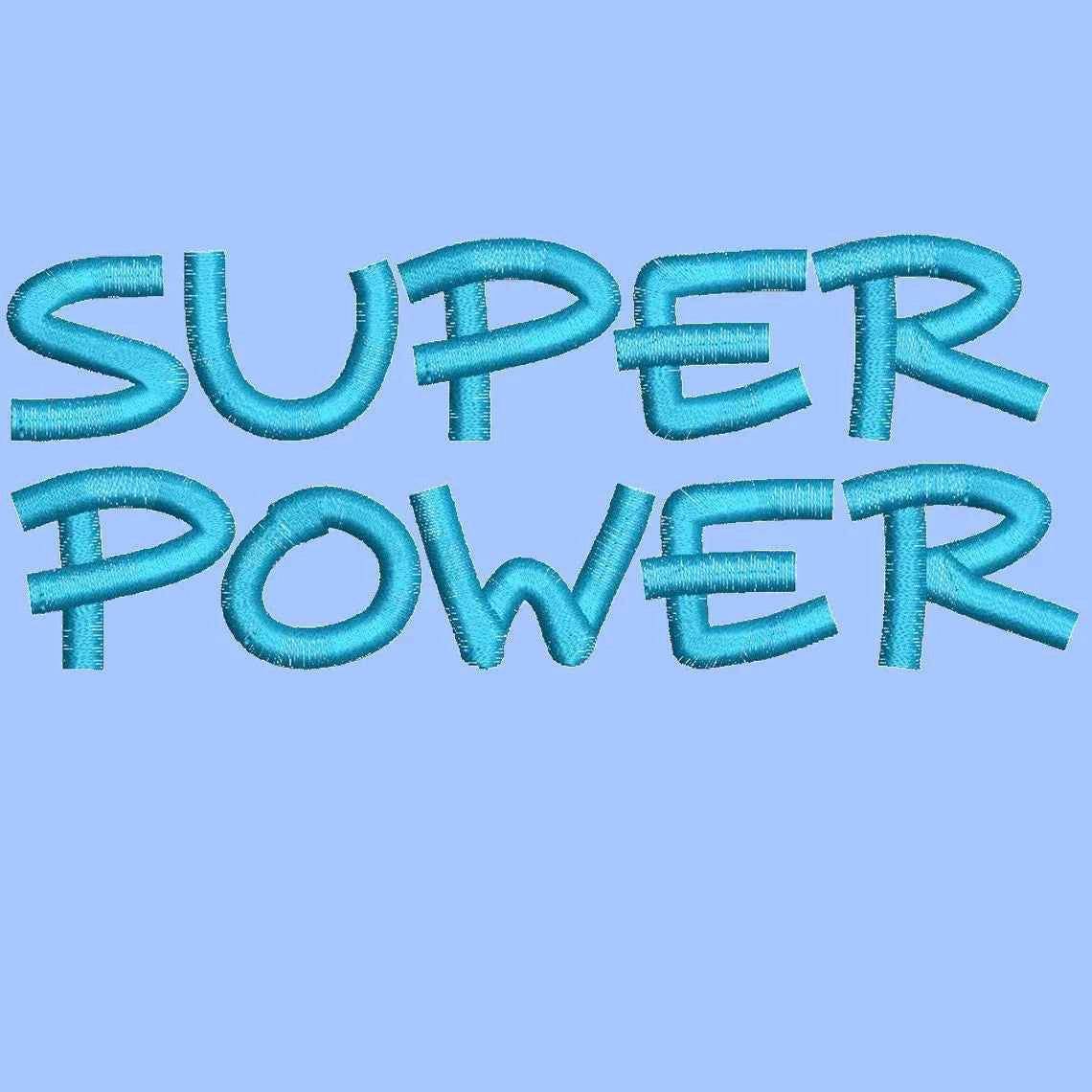
Elevate your embroidery projects with the Super Power Embroidery alphabet Font Set – where elegance meets creativity!
Introducing the Super Power Embroidery alphabet Font Set, your new go-to collection for stunning embroidery designs that resonate with sophistication and style. Perfectly crafted for both novice and expert embroiderers, this set is designed to transform your projects into works of art, providing clarity and impact in every creation.
What sets the Super Power Embroidery alphabet Font Set apart is its remarkable quality and refined design. Each character has been meticulously crafted, ensuring that your letters are not only beautiful but also incredibly legible. The elegant lines and curves of each font give your projects a unique flair, making it easy to create standout pieces that impress.
From personalizing gifts to creating elegant monograms, the Super Power Embroidery alphabet Font Set opens the door to endless creative possibilities. This versatile set allows you to add a touch of sophistication to home decor, custom apparel, and much more. Whether you're working on a special project or a regular crafting session, these fonts are sure to elevate your work.
At FineryEmbroidery, we understand the passion that goes into every embroidery project. That’s why we’ve ensured that our Super Power Embroidery alphabet Font Set is digitized with the utmost precision. We know how important it is for passionate embroiderers to have designs that perform flawlessly. This is why each character has been carefully digitized to deliver exceptional quality and consistency, allowing you to focus on your creativity without worry.
- Perfect for intricate monograms, unique home decor, or custom gifts that leave a lasting impression.
Elevate your embroidery projects with the Super Power Embroidery alphabet Font Set – where elegance meets creativity!
Introducing the Super Power Embroidery alphabet Font Set, your new go-to collection for stunning embroidery designs that resonate with sophistication and style. Perfectly crafted for both novice and expert embroiderers, this set is designed to transform your projects into works of art, providing clarity and impact in every creation.
What sets the Super Power Embroidery alphabet Font Set apart is its remarkable quality and refined design. Each character has been meticulously crafted, ensuring that your letters are not only beautiful but also incredibly legible. The elegant lines and curves of each font give your projects a unique flair, making it easy to create standout pieces that impress.
From personalizing gifts to creating elegant monograms, the Super Power Embroidery alphabet Font Set opens the door to endless creative possibilities. This versatile set allows you to add a touch of sophistication to home decor, custom apparel, and much more. Whether you're working on a special project or a regular crafting session, these fonts are sure to elevate your work.
At FineryEmbroidery, we understand the passion that goes into every embroidery project. That’s why we’ve ensured that our Super Power Embroidery alphabet Font Set is digitized with the utmost precision. We know how important it is for passionate embroiderers to have designs that perform flawlessly. This is why each character has been carefully digitized to deliver exceptional quality and consistency, allowing you to focus on your creativity without worry.
- Perfect for intricate monograms, unique home decor, or custom gifts that leave a lasting impression.